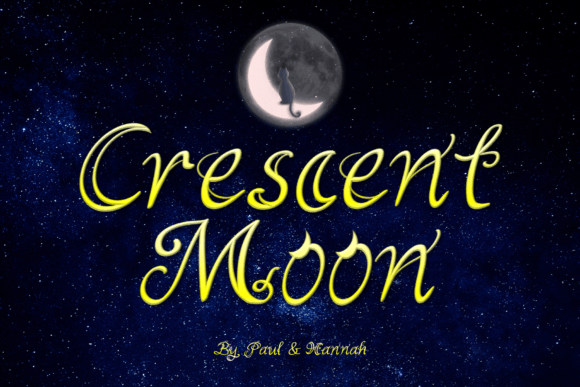
The Magic of Typography: Unveiling the Crescent Moon Font
Have you ever been inspired by a dream, a vision, or a simple observation? For me, it was the night sky. I was walking under the stars, and the crescent moon caught my eye. Its gentle curve and ethereal glow sparked an idea – a font that captures the essence of mystery and magic. And so, the Crescent Moon Font was born.
This enchanting font is designed to transport you to a world of wonder and awe. Its unique design, adorned with a perfectly placed crescent moon, is sure to add a touch of magic to any project. For designers, the Crescent Moon Font is a valuable tool, offering a fresh perspective and a chance to create something truly unique. Whether you’re working on a fantasy novel, a mystical website, or a Halloween-themed campaign, this font is sure to cast a spell on your audience.
Crescent Moon Font Key Features
- Font Style: A decorative, handwritten font with a touch of elegance and sophistication.
- Unique Characteristics: The font features a unique, crescent-shaped design element that adds a touch of whimsy and playfulness.
Crescent Moon Font Review
When I first stumbled upon the Crescent Moon Font, I was immediately drawn in by its whimsical and dreamy vibe ✨. The font’s unique, curved shapes and soft lines evoke a sense of nostalgia and wonder, making it perfect for projects that require a touch of magic. The font is also highly versatile, working well in a variety of contexts, from children’s books to advertising campaigns.
- The font’s legibility is excellent, even at smaller font sizes ✨.
- The font’s unique design makes it stand out from more generic sans-serif fonts ✨.
- The font is highly customizable, with a range of weights and styles available ✨.
However, there are a few limitations to consider ⚠️:
- The font may be too playful for more serious or professional projects ⚠️.
- The font’s unique design may not be to everyone’s taste ⚠️.
- The font may not be compatible with all operating systems or software ⚠️.
Overall, I think the Crescent Moon Font is a great choice for designers who want to add a touch of whimsy to their projects. While it may not be suitable for every project, it’s definitely worth considering for projects that require a sense of wonder and magic.
Some tips for getting the most out of the Crescent Moon Font include:
– Using it for whimsical or magical designs.
– Pairing it with bold, sans-serif fonts for contrast.
– Applying it to titles or headings for emphasis.
Common use cases for the Crescent Moon Font include:
– Wedding invitations or stationery.
– Children’s book illustrations.
– Fantasy or sci-fi themed designs.
Alternatives to Crescent Moon Font for Designers
The Great Vibes Font is a beautiful, elegant script font perfect for adding a touch of sophistication to your designs. It’s ideal for wedding invitations, greeting cards, and other high-end projects. Great Vibes Font is more elegant and refined compared to Crescent Moon Font, which has a more playful and whimsical feel.
Alex Brush Font is a modern script font that combines elegance and sophistication with a touch of playfulness. It’s perfect for designs that require a unique and eye-catching touch, such as logos, branding materials, and advertising campaigns. Alex Brush Font is more versatile and adaptable compared to Crescent Moon Font, which is more suited for whimsical and dreamy designs.
The Dancing Script Font is a beautiful, flowing script font that’s perfect for designs that require a touch of elegance and sophistication. It’s ideal for high-end projects such as wedding invitations, luxury branding, and fine art prints. Dancing Script Font is more refined and polished compared to Crescent Moon Font, which has a more rustic and hand-drawn feel.